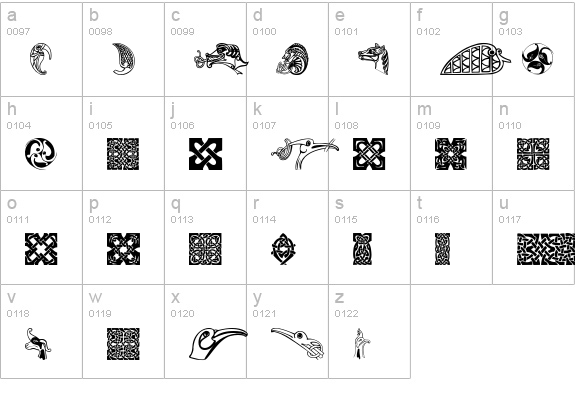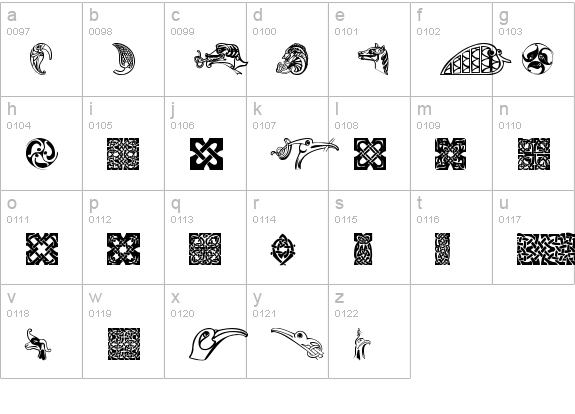
CelticMotif Font Details
CelticMotif font is a beautifully crafted typeface inspired by traditional Celtic designs and motifs. Its intricate patterns and elegant curves evoke a sense of ancient mystique and artistic flair. The font is perfect for adding a touch of Celtic charm to your designs, whether it be for posters, invitations, or branding materials. What's even better is that CelticMotif font is completely free to use! You can easily download it at FontsMarket.com and start incorporating its unique style into your projects today. Don't miss out on this wonderful opportunity to enhance your designs with the timeless beauty of Celtic artistry.